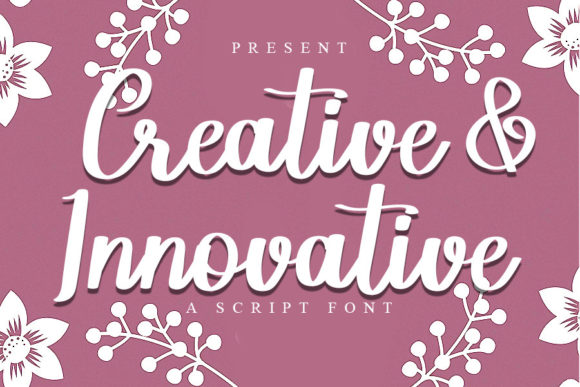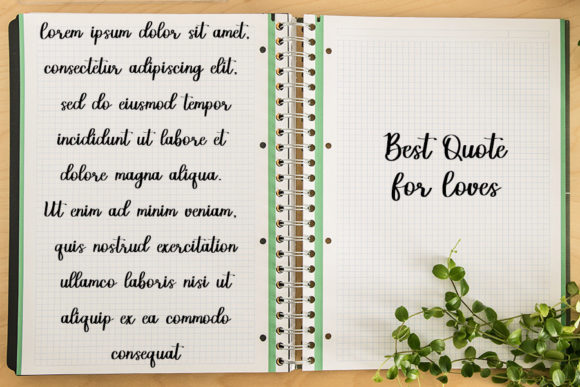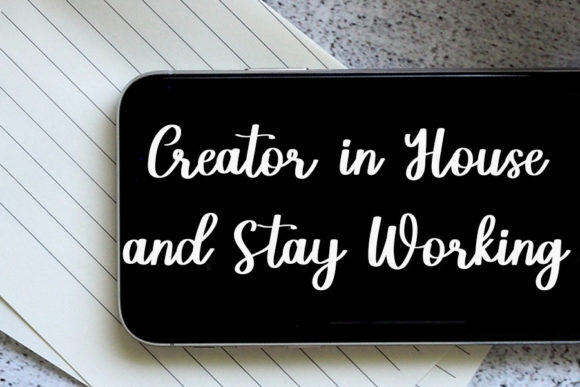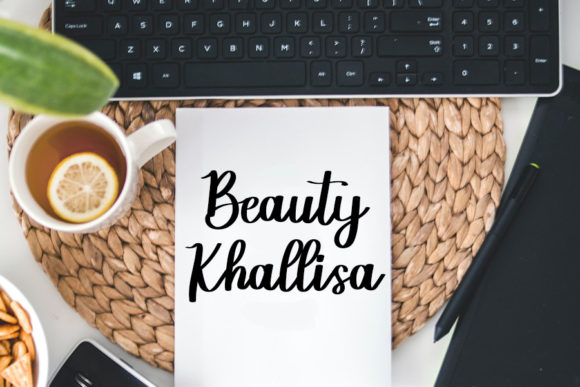
About Creative & Innovative Font
Creative & Innovative is a flowing and bold paint brushed handwritten font that adds a touch of creativity and uniqueness to a variety of designs. With its personalized style, this font is particularly well-suited for projects that require a distinct and artistic touch, such as wedding invitations, thank you cards, greeting cards, logos, and more.
The beauty of Creative & Innovative lies in its flowing and bold brush strokes, creating a dynamic and expressive look that captures attention. Each letter carries a sense of artistic flair, making it perfect for designs that aim to stand out and make a statement. Whether you’re designing for weddings, special events, or simply want to infuse your designs with a creative touch, Creative & Innovative is an excellent choice.
The versatility of Creative & Innovative allows it to shine in a wide range of projects. It brings a sense of energy and vibrancy to wedding invitations, making them memorable and captivating. It adds an artistic touch to thank you cards and greeting cards, conveying your message with style. And it injects creativity into logos and branding materials, helping your business make a strong impression.
Embrace the flowing and bold nature of Creative & Innovative, and let it unleash your creativity in your designs. Incorporate this font into your projects, and you’ll see how it adds a touch of innovation and personal style.